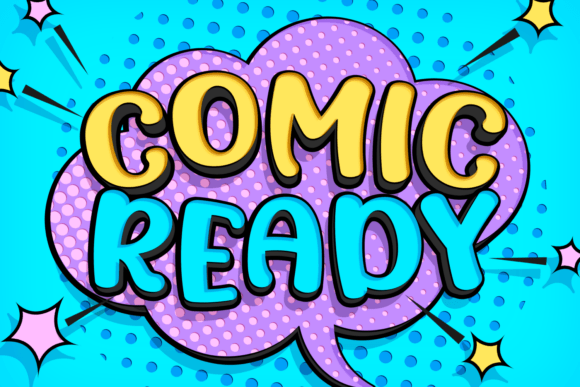
Introducing Comic Ready Font: The Ultimate Choice for Vibrant and Dynamic Designs
In the world of typography, fonts play a crucial role in conveying the tone and personality of a design. When it comes to creating comic books, children’s books, social media graphics, and poster designs, a font that exudes energy and fun is essential. This is where Comic Ready Font comes into play. In this article, we’ll explore the features and benefits of Comic Ready Font, and why it’s the perfect choice for projects that need to stand out.
What is Comic Ready Font?
Comic Ready Font is a vibrant and dynamic cartoon font that is designed to bring a pop-art aesthetic with a lively spirit to your designs. Its chunky letterforms, playful curves, and bold outlines create a perfect comic book style that grabs attention. The font is ideal for a wide range of applications, including comic strips, children’s books, social media graphics, and poster designs.
Key Features of Comic Ready Font
- Chunky Letterforms: Comic Ready Font features chunky letterforms that are perfect for creating bold and eye-catching designs.
- Playful Curves: The font’s playful curves add a touch of fun and whimsy to your designs, making them perfect for children’s books and comic strips.
- Bold Outlines: The bold outlines of Comic Ready Font create a sense of depth and dimension, making your designs stand out.
- Bright Colors: The font comes in bright and vibrant colors that evoke a sense of movement and fun.
- Outlined Style: The outlined style of Comic Ready Font creates a sense of depth and dimension, making your designs pop.
Why Choose Comic Ready Font?
So, why choose Comic Ready Font for your next project? Here are just a few reasons:
- Attention-Grabbing: Comic Ready Font is designed to grab attention and make your designs stand out.
- Fun and Playful: The font’s playful curves and bright colors create a fun and playful vibe that’s perfect for children’s books and comic strips.
- Versatile: Comic Ready Font is versatile and can be used for a wide range of applications, including social media graphics, poster designs, and more.
- Easy to Read: Despite its bold and chunky design, Comic Ready Font is easy to read, making it perfect for body text and headlines.
Use Cases for Comic Ready Font
Comic Ready Font is perfect for a wide range of applications, including:
- Comic Strips: The font’s bold and chunky design makes it perfect for comic strips and cartoon-style illustrations.
- Children’s Books: Comic Ready Font is ideal for children’s books, adding a touch of fun and whimsy to your story.
- Social Media Graphics: The font’s bright colors and playful curves make it perfect for social media graphics, including Facebook posts, Twitter headers, and Instagram stories.
- Poster Designs: Comic Ready Font is great for poster designs, adding a bold and eye-catching touch to your artwork.
Tips for Using Comic Ready Font
Here are a few tips for using Comic Ready Font in your designs:
- Use it Boldly: Comic Ready Font is designed to be used boldly, so don’t be afraid to experiment with different sizes and colors.
- Mix and Match: Try mixing and matching Comic Ready Font with other fonts to create a unique and eye-catching design.
- Play with Colors: The font’s bright colors are a key part of its appeal, so try experimenting with different color combinations to find the one that works best for your design.
In conclusion, Comic Ready Font is a vibrant and dynamic cartoon font that is perfect for projects that need to stand out. Its chunky letterforms, playful curves, and bold outlines create a perfect comic book style that grabs attention. With its bright colors and outlined style, Comic Ready Font evokes a sense of movement and fun, making it an excellent choice for comic strips, children’s books, social media graphics, and poster designs. So why not give Comic Ready Font a try and see how it can bring a pop-art aesthetic with a lively spirit to your designs?
- What is Comic Ready Font? Comic Ready Font is a vibrant and dynamic cartoon font designed for comic strips, children’s books, social media graphics, and poster designs.
- What are the key features of Comic Ready Font? The font features chunky letterforms, playful curves, bold outlines, bright colors, and an outlined style.
- Why choose Comic Ready Font? Comic Ready Font is attention-grabbing, fun and playful, versatile, and easy to read.